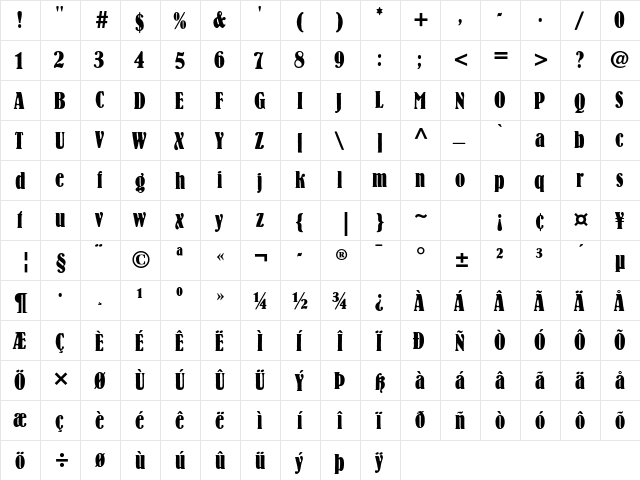
Bernhard Std Bold Condensed
| Designer | Lucian Bernhard |
Design Context for Bernhard Std Typeface
Bernhard Std takes a measured approach to typography — its balanced proportions and neutral character make it a reliable workhorse for both digital and print work. The heavy weight commands attention and anchors typographic hierarchies. The condensed width makes it efficient for tight spaces without sacrificing legibility.